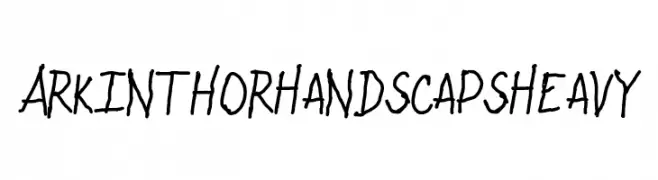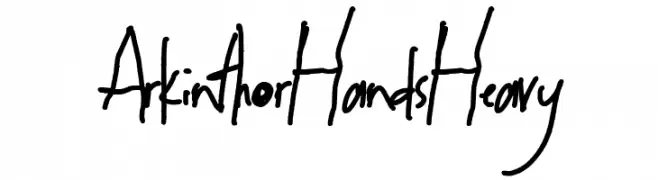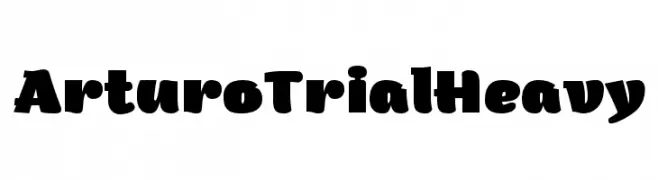
( Fonts by The Branded Quotes )
Bold, hand-drawn uppercase font with an expressive, casual style.
( Fonts by The Branded Quotes )
Expressive, energetic handwritten style with tall, narrow characters.
( Zetafonts - www.zetafonts.com )
A bold, playful font with thick, rounded strokes and high contrast.
( Zetafonts - www.zetafonts.com )
A bold, heavy italic font with a dynamic and energetic style.
( Zetafonts - www.zetafonts.com )
A bold, playful font with heavy outlines and a cartoon-like style.
A playful, handwritten font with rounded edges and a casual style.
A bold, modern font with geometric shapes and consistent width.
A bold, geometric font with rounded edges and a modern style.